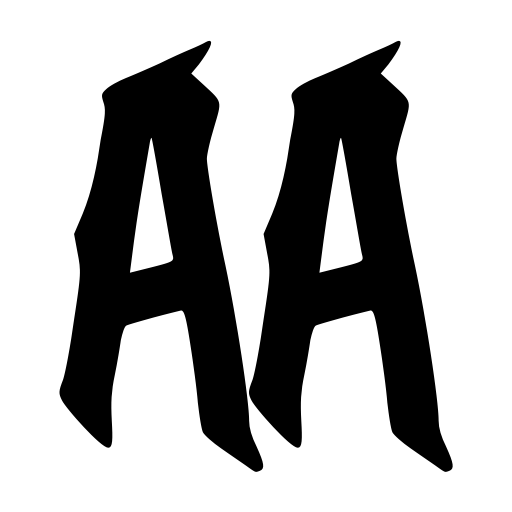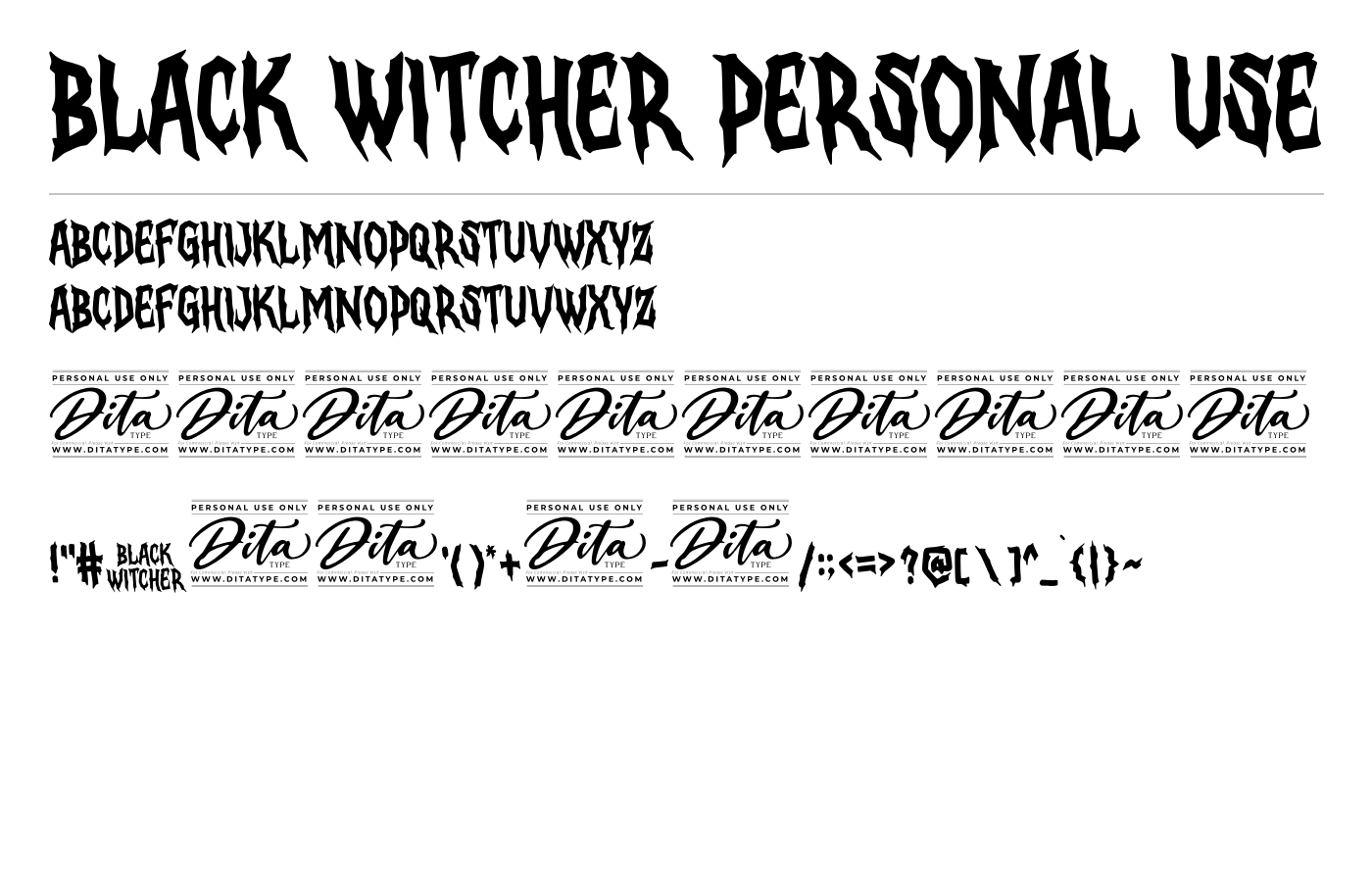
Black Witcher Personal Use is a bold, jagged display font with a gothic, horror-inspired style. Its irregular, sharp-edged letterforms create a dark and eerie atmosphere, making it perfect for spooky-themed designs, Halloween, or projects needing a dramatic, mysterious feel. This font works best in headlines and logos where a strong, eye-catching impact is desired.
Black Witcher Personal Use Font
About Black Witcher Personal Use Font
| Font family | Black Witcher Personal Use Font |